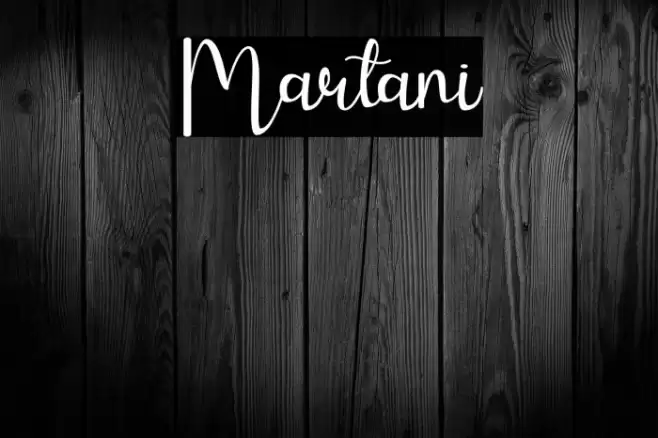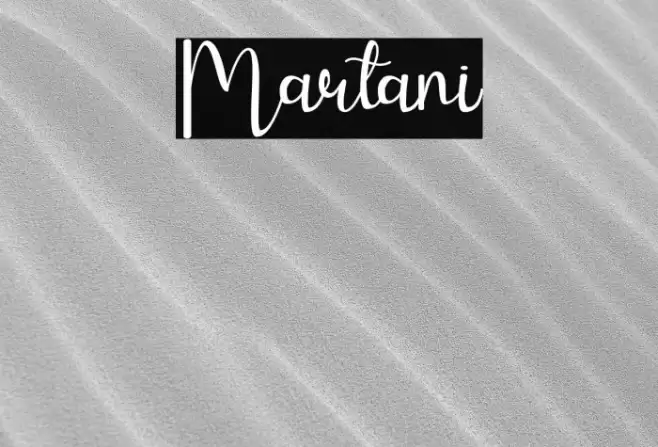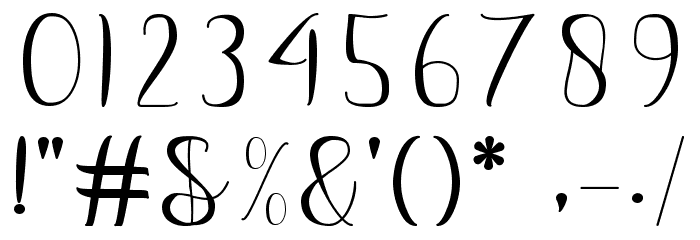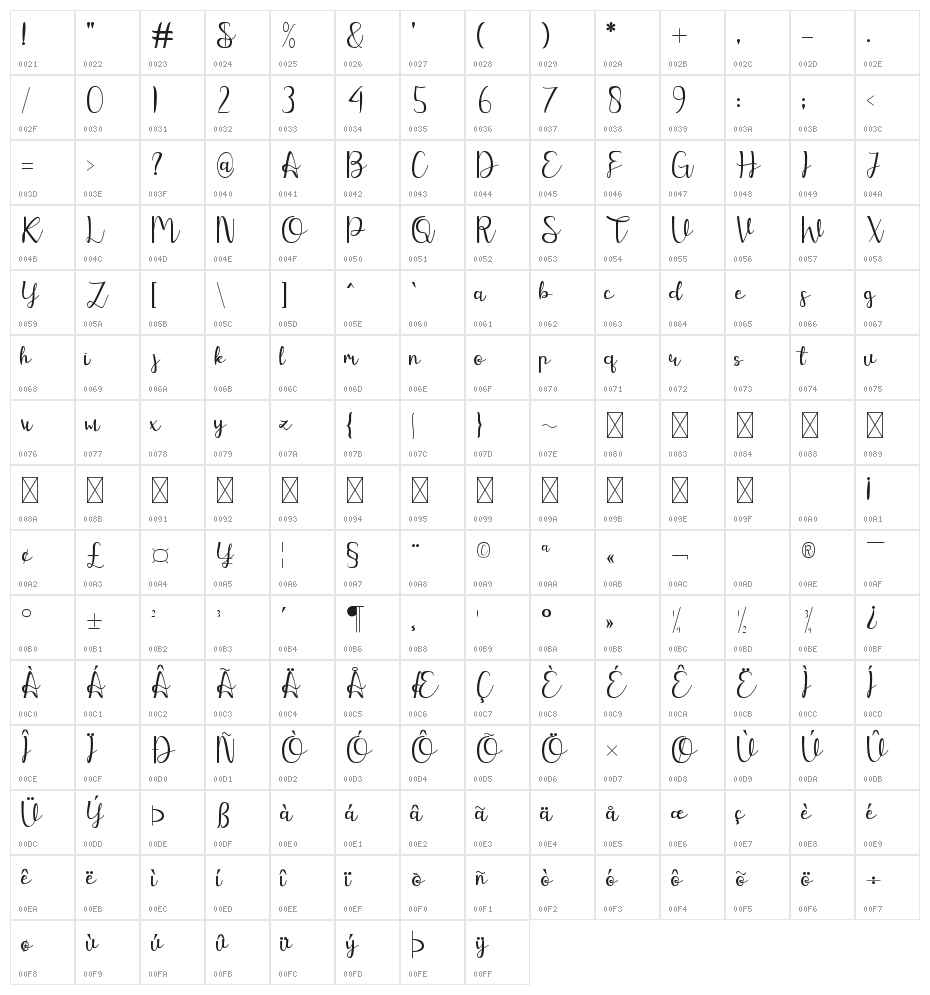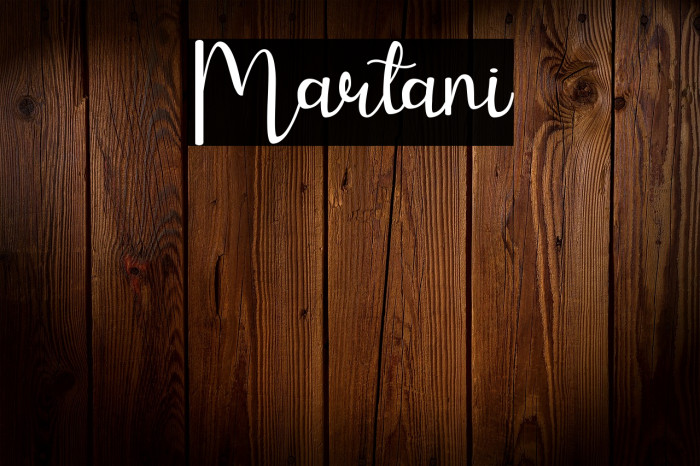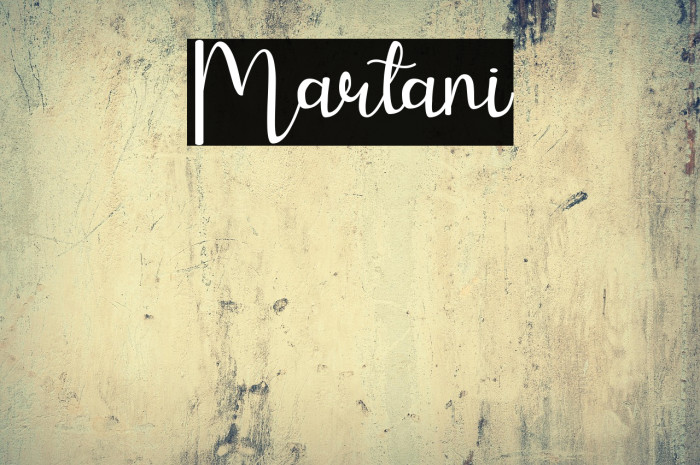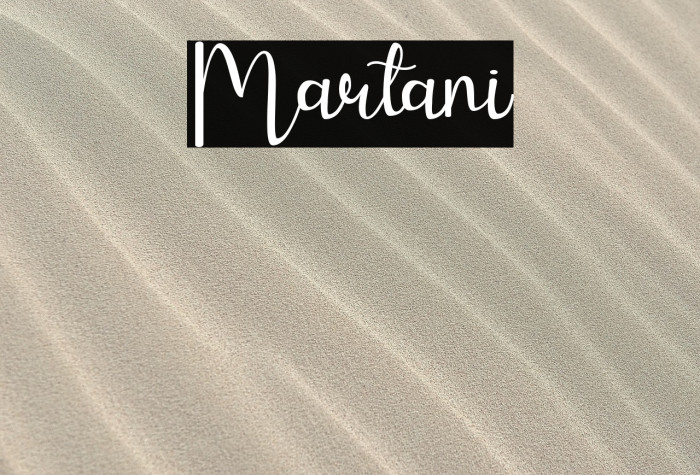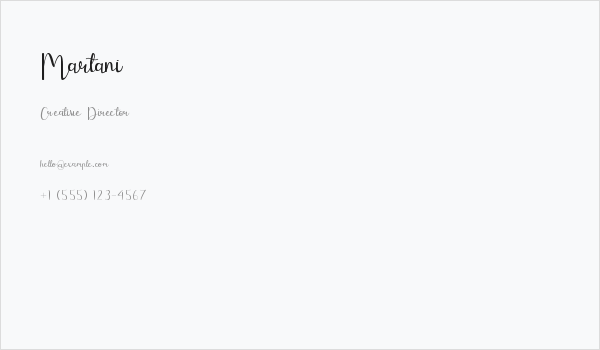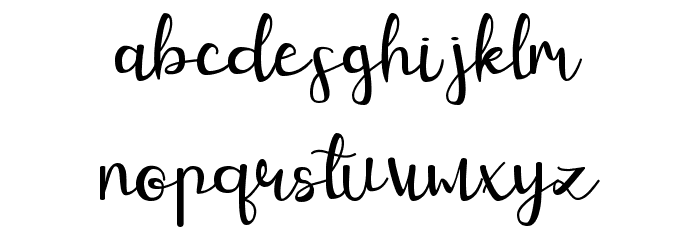
Martani Font
Martani Description
This font features a playful and elegant script style with a handwritten appearance. The uppercase letters are characterized by their flowing, cursive forms, while the lowercase letters maintain a consistent, smooth stroke that enhances readability. The numerals are distinct and slightly whimsical, adding to the font's charm. Special characters are creatively integrated, maintaining the overall aesthetic. The font's design is both artistic and functional, making it suitable for a variety of creative projects.
A playful and elegant script font with a handwritten style from Regular fonts.
- Proposed Projects: Ideal for wedding invitations, greeting cards, branding projects, and social media graphics.
- Use Case: Logos, Invitations, Greeting Cards